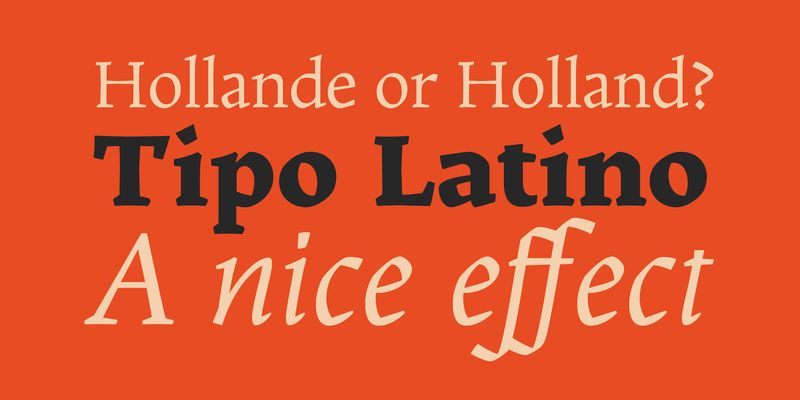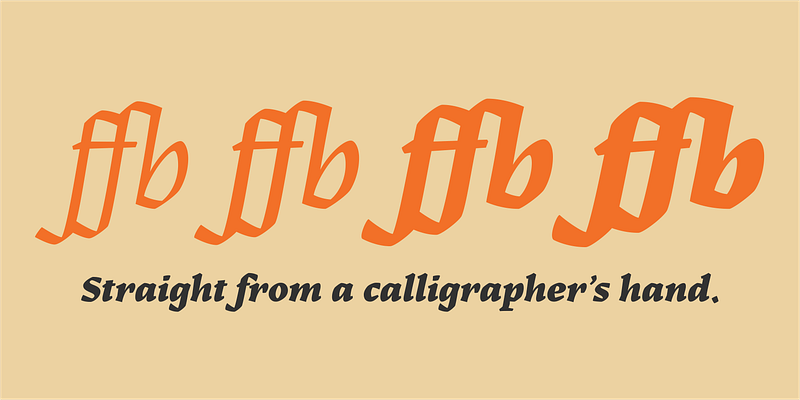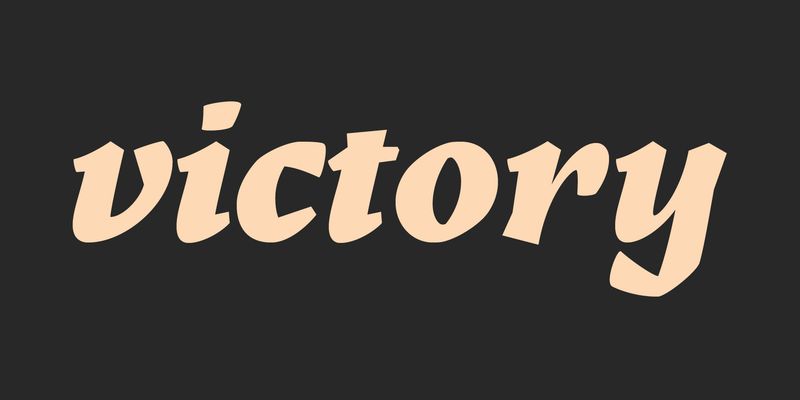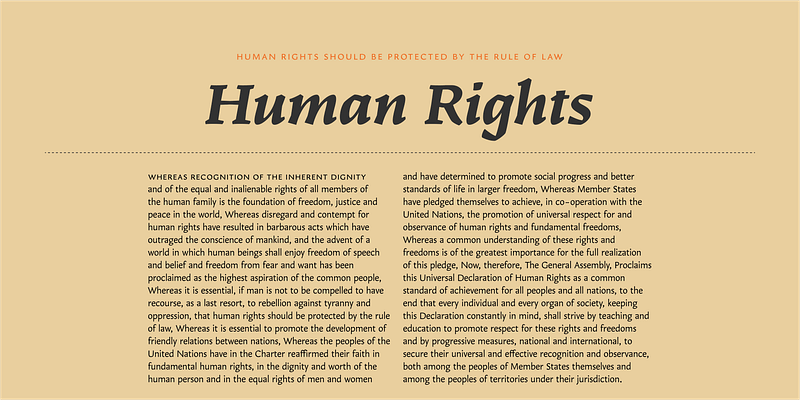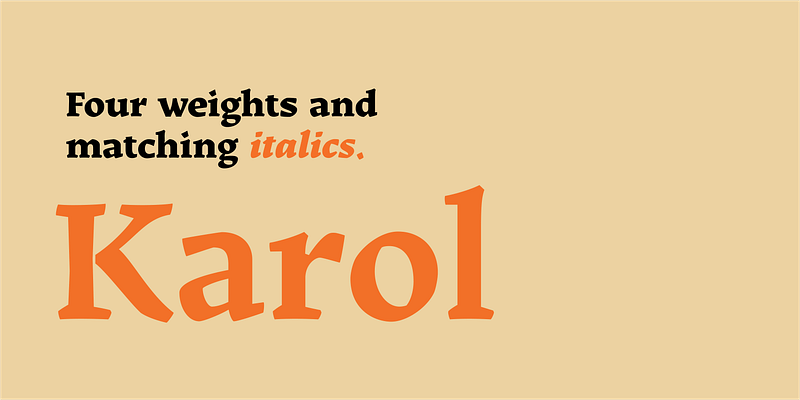
Inspired by the work of East European type designers, Karol is as a text typeface in a collection of eight styles (four weights and matching italics) with high readability, strength and character. A few days before its publication, Karol was awarded with the Certificate of Typographic Excellence (Judges’ Choice) of the Type Directors Club in 2013. Karol Sans is its natural companion.